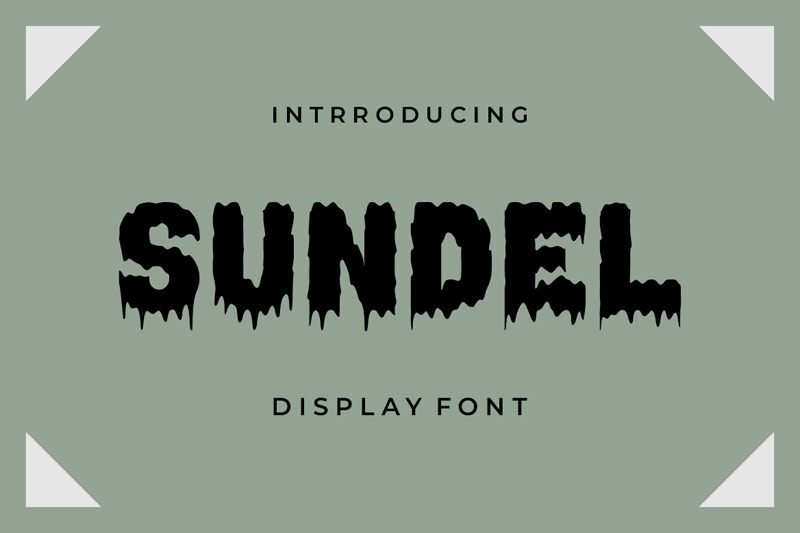
Sundel font, designed by Gilang Ternadho, stands out with its bold and haunting aesthetic, perfect for capturing attention. The dramatic design features sharp edges and jagged contours that evoke a sense of unease, making it ideal for projects seeking to create an atmosphere of suspense or thrill.
This striking display font excels in conveying emotion, exuding a raw energy that draws the viewer in. Its visually impactful style lends itself well to Halloween-themed events, horror film posters, or any promotional material that embraces the eerie and unsettling.
Whether used for titles or key phrases demanding focus, Sundel’s distinctive character makes it an exciting choice for designers looking to push boundaries while ensuring their message resonates with intensity.